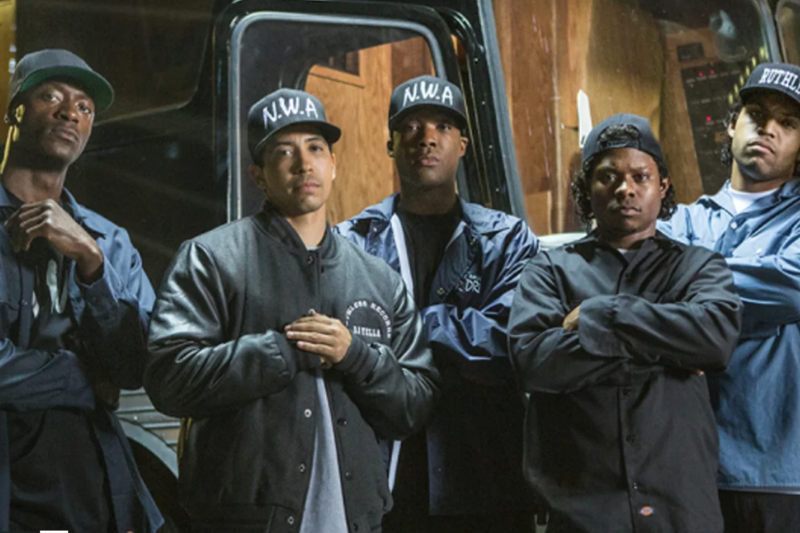
Straight Outta Compton Font Generator
About the Straight Outta Compton Font Generator
The Straight Outta Compton meme format β€” bold white text on a black background in the classic NWA album font β€” became one of the most versatile and widely shared visual templates on the internet. The typography is clean, powerful, and loaded with cultural weight from the landmark 1988 hip-hop album that changed music history.